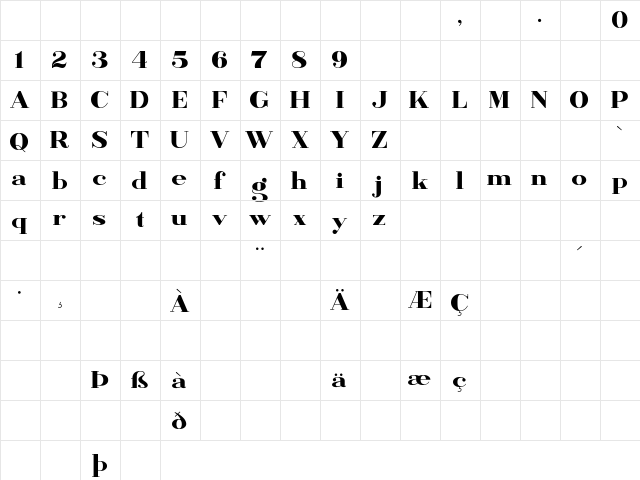
Banbury Regular
Design Context for Banbury Typeface
Banbury offers clean, dependable letterforms without strong stylistic allegiance, making it a practical choice for designers who need flexibility.
Pro Tip: Use Banbury in both headline and body roles to test its range before committing to a single application.